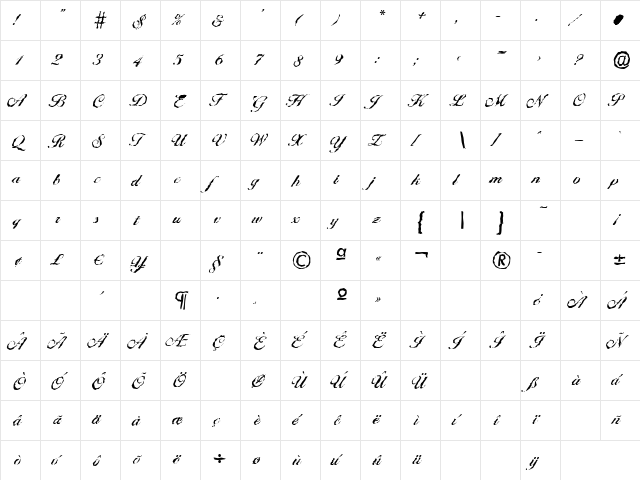
BallantinesRandom-Medium Regular Font Preview
BallantinesRandom-Medium Regular
BallantinesRandom-Medium Regular Font Details
Design Context for BallantinesRandom-Medium Typeface
BallantinesRandom-Medium is a composed and adaptable typeface that performs quietly and consistently across a wide range of design contexts.